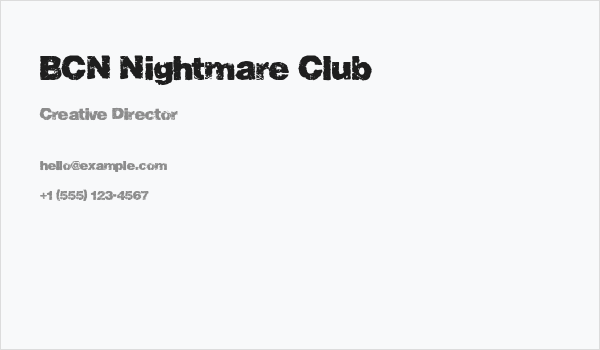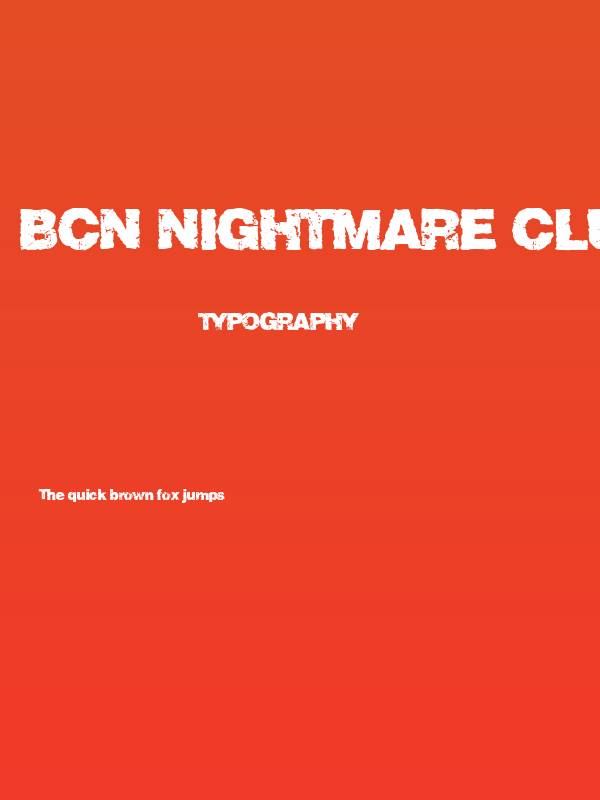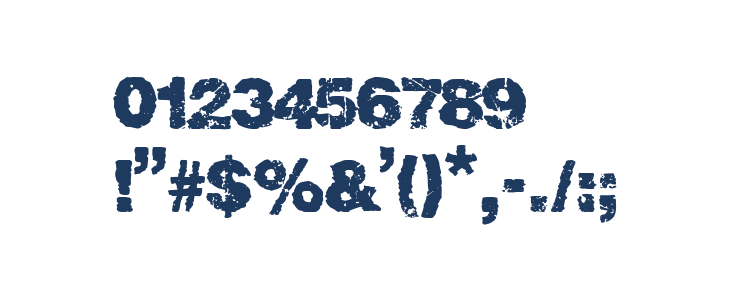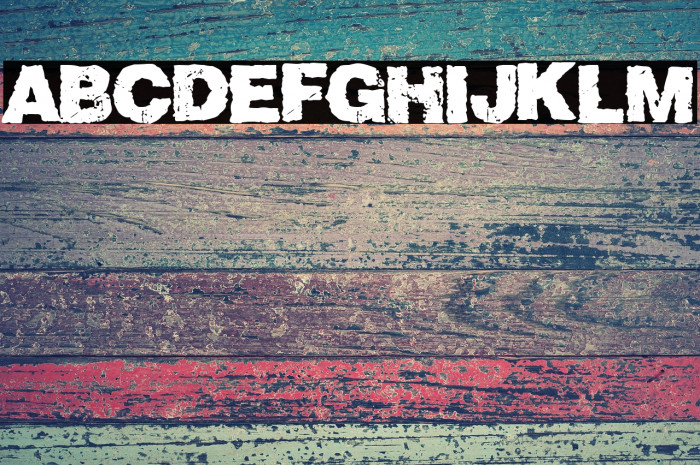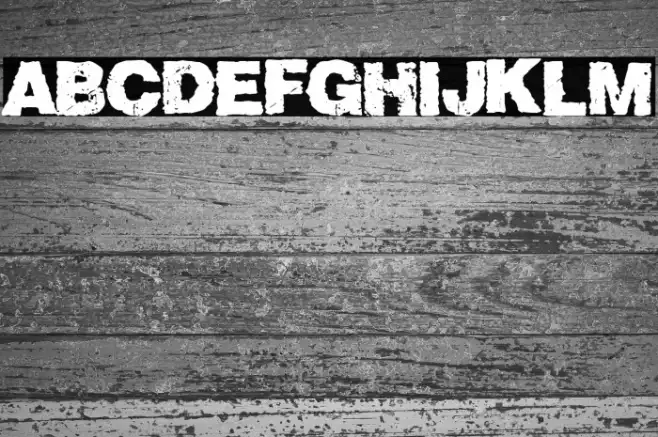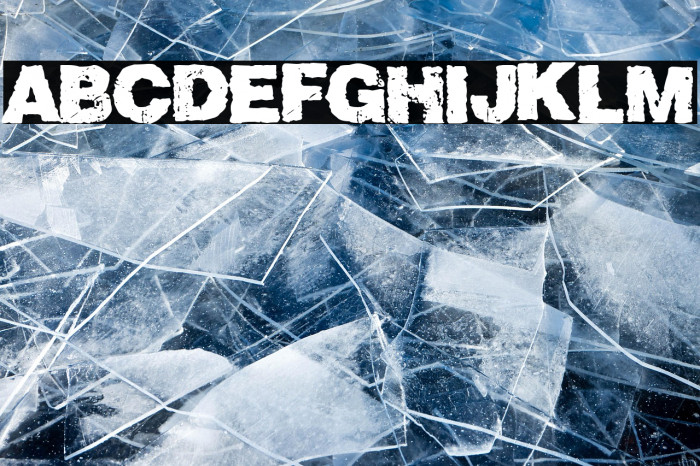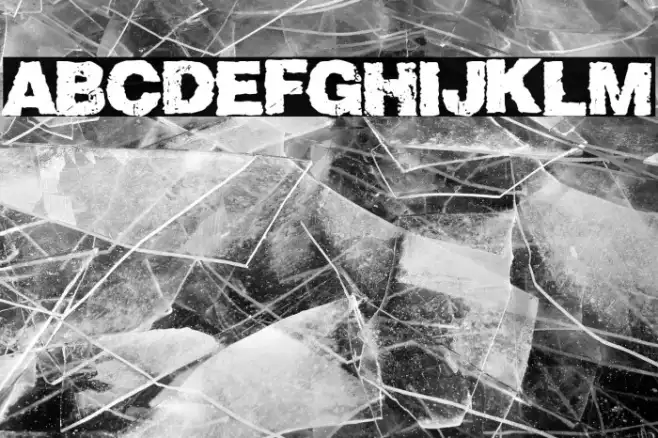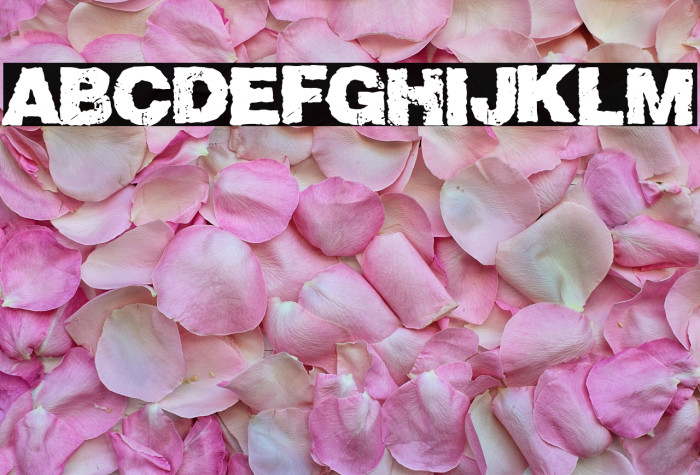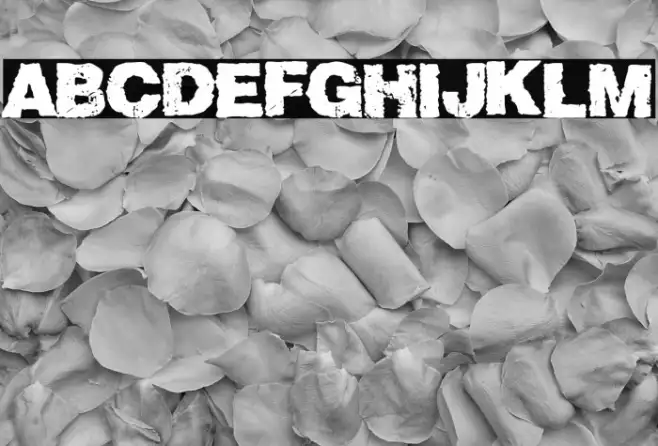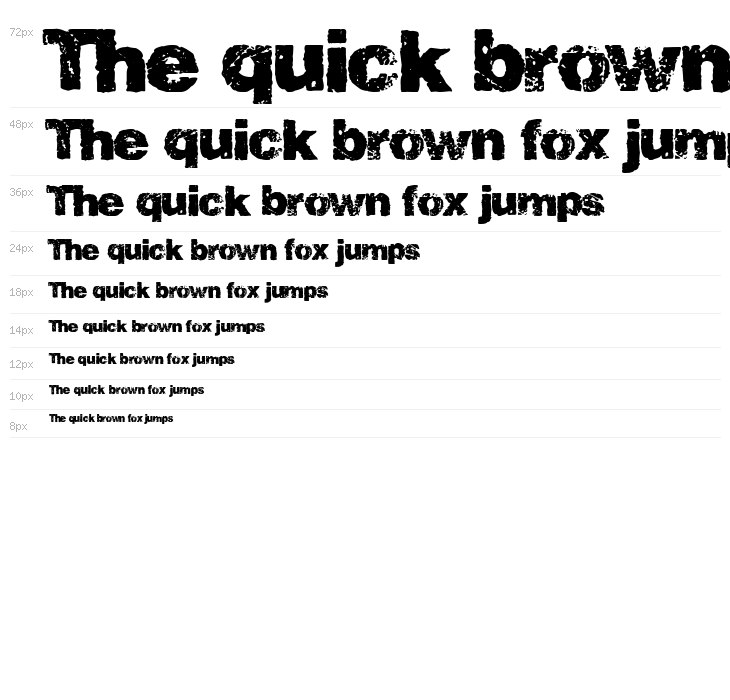
BCN Nightmare Club Font
BCN Nightmare Club Description
This font features a bold, distressed style with a rough, textured appearance. The characters are heavily weathered, giving them a grunge or urban aesthetic. The uppercase and lowercase letters maintain a consistent boldness, while the numbers and special characters follow the same rugged design. The font's uneven edges and irregular shapes create a dynamic and edgy look, perfect for designs that require a raw and impactful visual presence. Its unique style makes it stand out, ideal for projects that aim to convey a sense of rebellion or nonconformity.
| Overall Style | Grunge, Urban |
| Proposed Projects | Ideal for album covers, posters, streetwear branding, or any project needing a gritty, urban feel. |